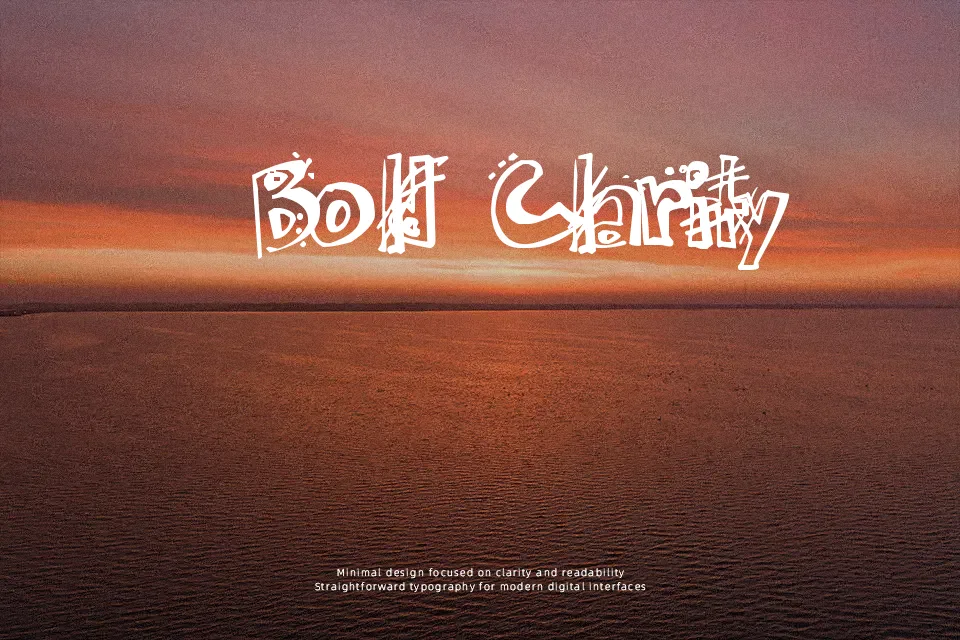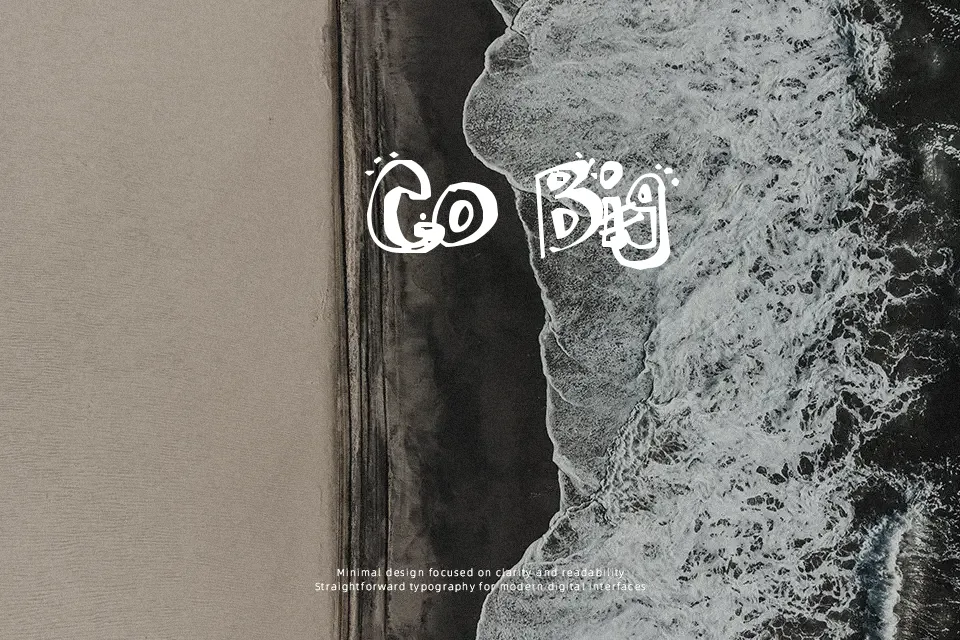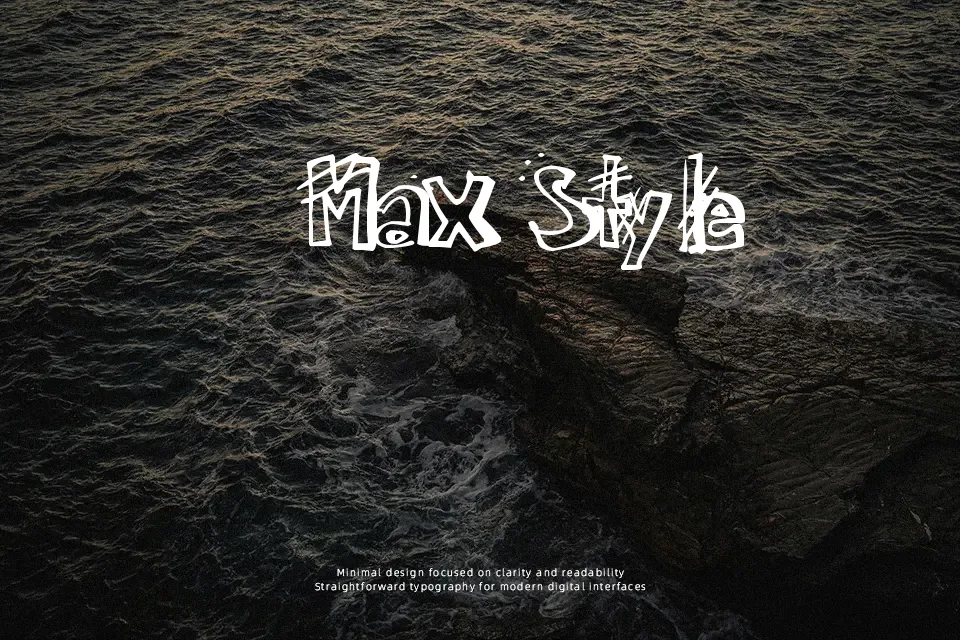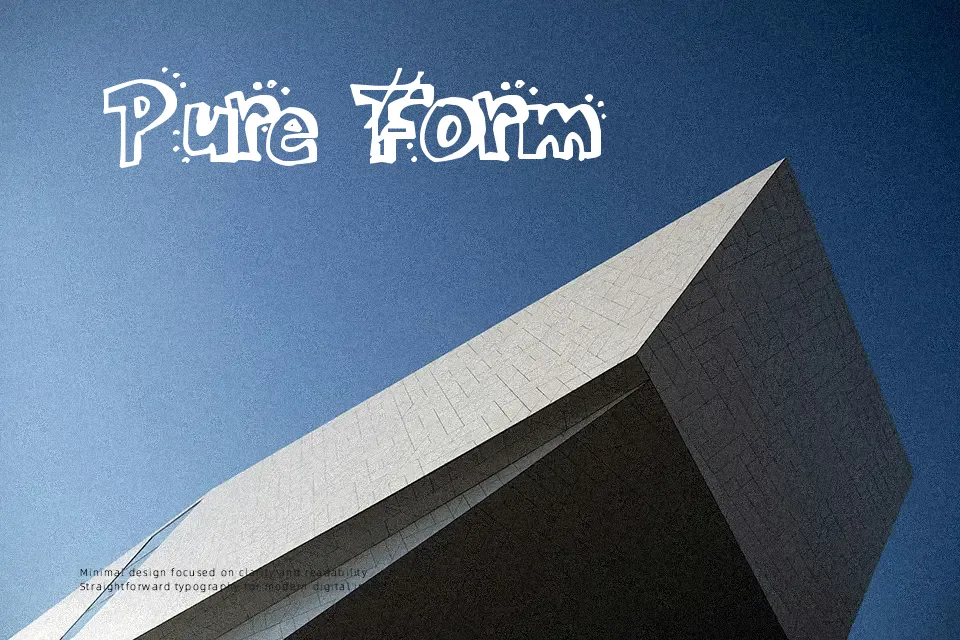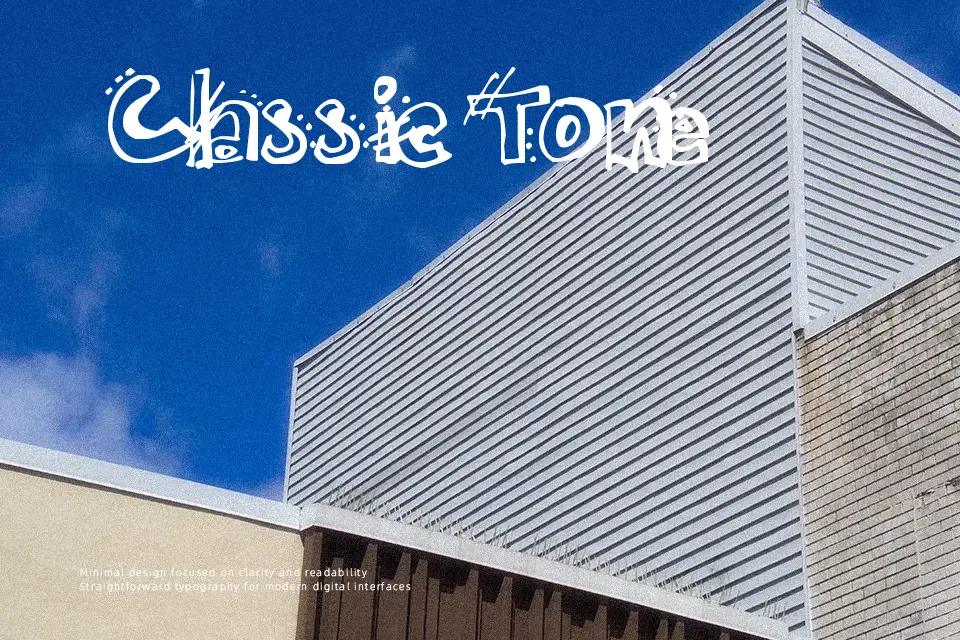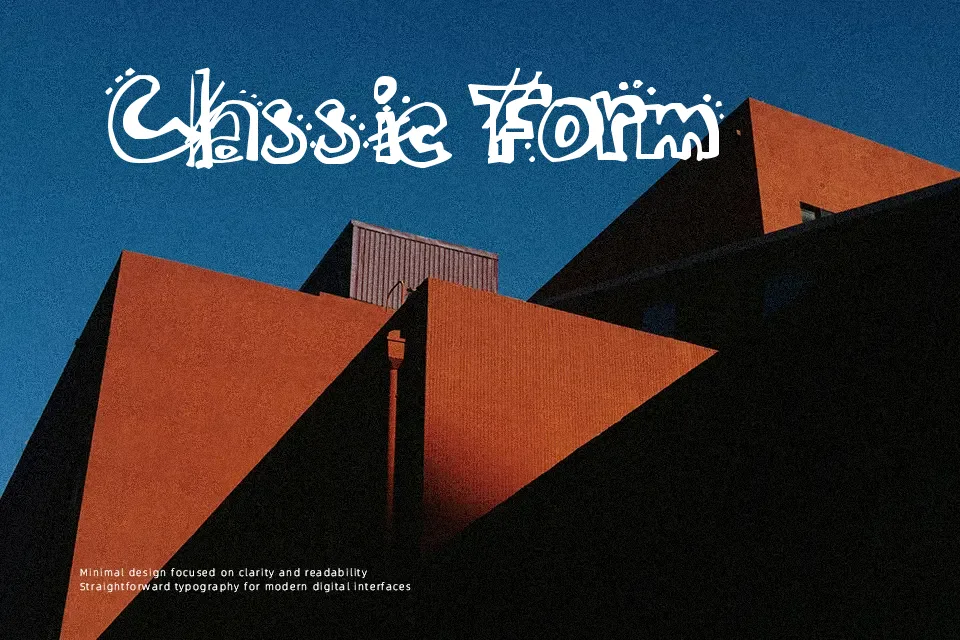
Carmen Font
Carmen Font presents an eccentric, hand-crafted aesthetic built on exaggerated shapes, soft terminals, and whimsical stroke weight variations. Each glyph exhibits spontaneous asymmetry, wide proportions, and loose, forgiving spacing that preserves energetic personality in prominent headings. The typeface excels across themed birthday invitations, animated video title cards, comic strip captions, and playful merchandise labeling. The heavy, irregular outlines maintain crisp character definition at larger scale settings. However, dense paragraphs and compact UI layouts become difficult to parse due to inconsistent baseline alignments and quirky counters. For short, vibrant statements, the letterforms introduce an engaging, informal rhythm.
Best For: children’s book covers, animated video titles, themed party invitations, cartoon merchandise packaging
Not Ideal For: long body text, corporate annual reports, mobile app interface labels, dense legal documents
Perfect for advertising, headline, and kids, with a creative and cartoon style.